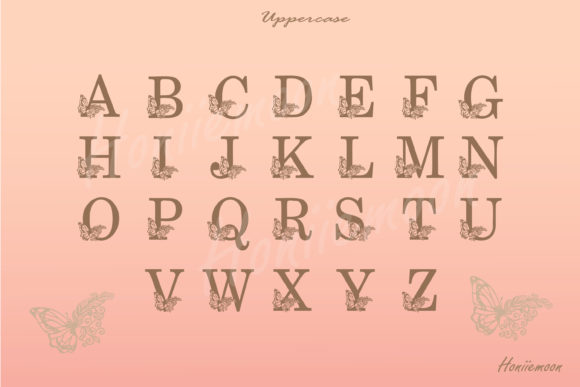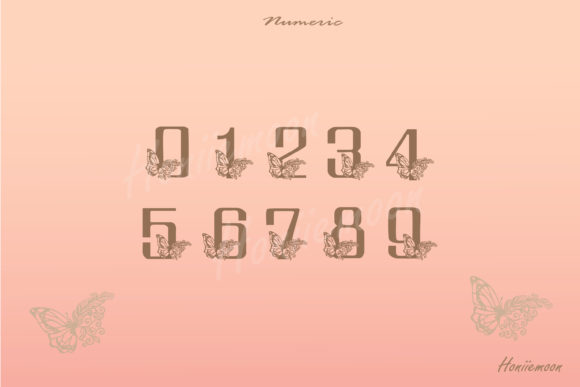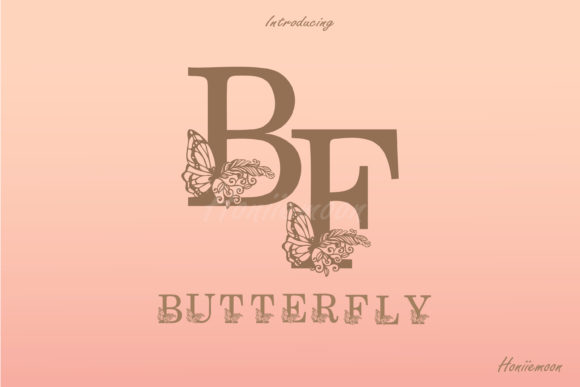
The Magical World of Butterfly Font: A Designer’s Delight
I’ll never forget the time I was working on a project for a children’s birthday party invitation. I had the design concept all figured out, but I was stuck on finding the perfect font. The invitation needed to be fun, playful, and eye-catching. That’s when I stumbled upon the Butterfly font, and it was love at first sight! 💕
The Butterfly font is a cool and fun decorative font that looks both cute and jolly. It has a way of enhancing each of your designs, and the only limit is your imagination. In this article, I’ll share my experience with this amazing font, its features, and how to make the most of it in your designs.
An Honest Review of Butterfly Font
What I Love About Butterfly Font ✨
• ✅ Its playful and colorful vibe makes it perfect for designs that need a fun twist.
• ✅ The font is highly versatile and can be used for a wide range of projects, from party invitations to branding and advertising.
• ✅ It’s easy to read and understand, making it a great choice for headlines and titles.
• ✅ The font comes with a range of OpenType features, glyphs, and stylistic alternates that allow for endless creativity.
While the Butterfly font is amazing, there are a few things to keep in mind:
• 🤔 The font may not be suitable for body text or long paragraphs, as it’s best used for headlines and titles.
• 🤔 Some of the glyphs and special characters may require a bit of experimentation to get right.
A Practical Guide to Using Butterfly Font
The Backstory of Butterfly Font
The Butterfly font was designed by a team of creatives who wanted to create a font that would bring joy and playfulness to designs. Inspired by the beauty and freedom of butterflies, the font features a range of colorful and whimsical characters that are sure to delight.
Font Name Butterfly Font
Author Honiiemoon
Q: What type of projects is Butterfly font best suited for?
A: Butterfly font is perfect for designs that need a fun and playful twist, such as party invitations, branding and advertising, and social media graphics.
Q: Is Butterfly font easy to read?
A: Yes, Butterfly font is designed to be easy to read and understand, making it perfect for headlines and titles.